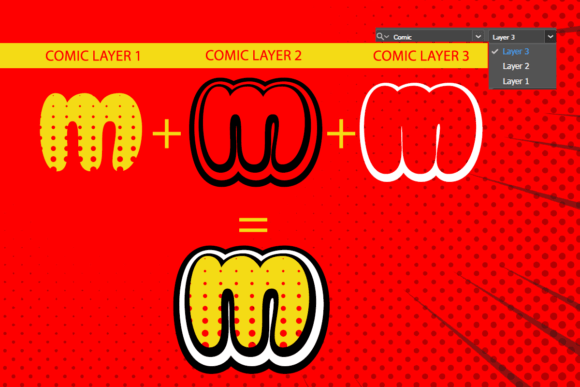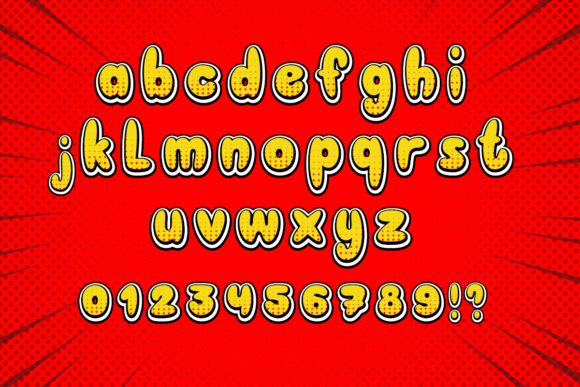
Introducing Comic Font: The Ultimate Display Font for Crafty Ideas
Are you a designer or crafter looking for a font that can add a touch of playfulness and creativity to your projects? Look no further than Comic Font, a cool and thick-lettered display font that’s perfect for a wide range of applications. In this article, we’ll take a closer look at the features and benefits of Comic Font, and explore how it can be used to elevate your designs and crafty ideas.
What is Comic Font?
Comic Font is a unique and original display font that’s designed to make a statement. Its thick, bold letters and playful style make it perfect for use in titles, headings, and other display text. But what really sets Comic Font apart is its versatility – it’s suitable for use in a wide range of projects, from letterheads and titles to stationery and posters.
Key Features of Comic Font
So what makes Comic Font so special? Here are just a few of its key features:
- Thick, bold letters: Comic Font features thick, bold letters that are perfect for making a statement.
- Playful style: The font’s playful style is reminiscent of classic comic books and adds a touch of fun and whimsy to any project.
- Versatile: Comic Font is suitable for use in a wide range of projects, from formal documents to more creative endeavors.
- Easy to read: Despite its bold style, Comic Font is easy to read, even at smaller sizes.
Uses for Comic Font
So what can you use Comic Font for? The possibilities are endless! Here are just a few ideas to get you started:
- Letterheads and titles: Use Comic Font to add a touch of personality to your letterheads and titles.
- Posters and flyers: Comic Font is perfect for use in posters and flyers, where its bold style can really make an impact.
- Stationery: Add a touch of whimsy to your stationery with Comic Font.
- Signs and banners: Comic Font is a great choice for signs and banners, where its bold style can be seen from a distance.
Tips for Using Comic Font
Here are a few tips for getting the most out of Comic Font:
- Use it sparingly: Comic Font is a bold font, so it’s best to use it sparingly to avoid overwhelming your design.
- Pair it with a simple font: Pair Comic Font with a simple font to create visual interest and add contrast to your design.
- Experiment with colors: Comic Font looks great in a wide range of colors, so don’t be afraid to experiment and find the perfect hue for your project.
In conclusion, Comic Font is a cool and versatile display font that’s perfect for designers and crafters looking to add a touch of playfulness and creativity to their projects. With its thick, bold letters and playful style, Comic Font is sure to make a statement in any design. Whether you’re creating letterheads, titles, posters, or stationery, Comic Font is a great choice. So why not give it a try and see what amazing things you can create?